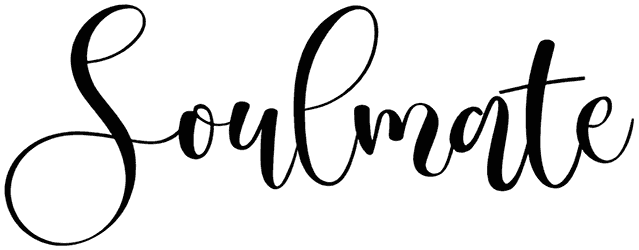
Mf Wedding Bells Font
Mf Wedding Bells is a calligraphy font that comes with elegant, cursive characters that add to the feminine vibes. It will help you make your brand seem more graceful yet formal to your target audience. Apart from branding purposes, you can also use Mf Wedding Bells in product packaging, videos, greeting card designs, hand-lettering as well as more design areas!